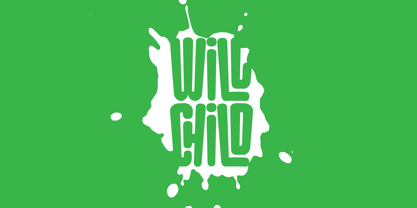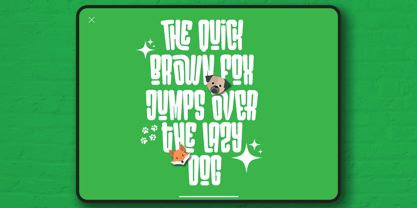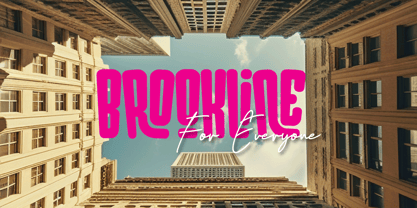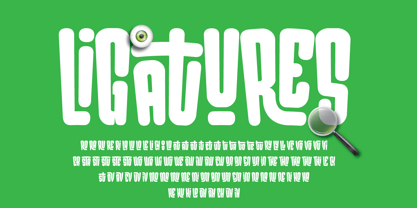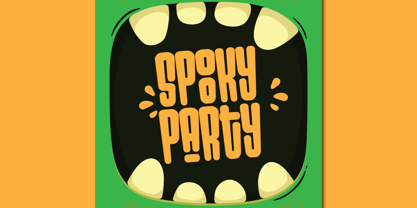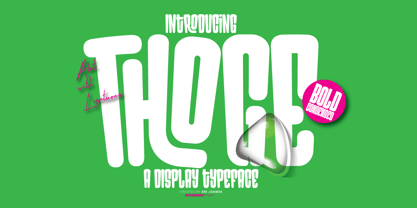
Thoge
by Linecreative
The Thoge Font Family was designed by Ari Juanda and published by Linecreative. Thoge contains 1 styles. More about this family
'Thoge' font is a playful typeface inspired by rubber balloons, complete with ligatures, giving a cheerful impression to every design.
Designers: Ari Juanda
Foundry: Linecreative